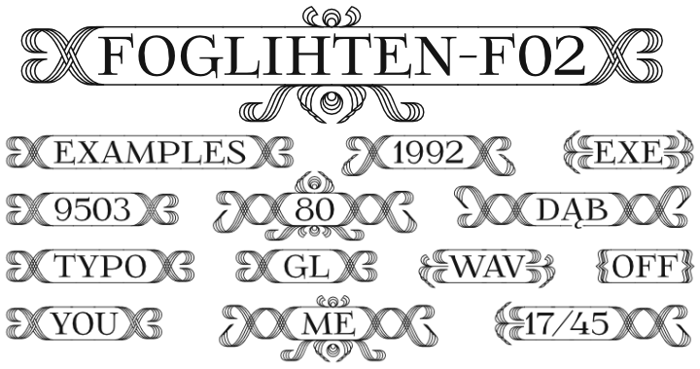
FoglihtenFr02 Font
Decorative Set of Frames with access direct from Keyboard, based on my font Foglihten PetiteCaps ( http://www.fontspace.com/gluk/foglihten ). See Exaples of use in FoglihtenFr02.pdf!
I'm a big fan of your work. This will make a lovely title font, and I'm especially pleased that the font does not "break" when there's a space between words!